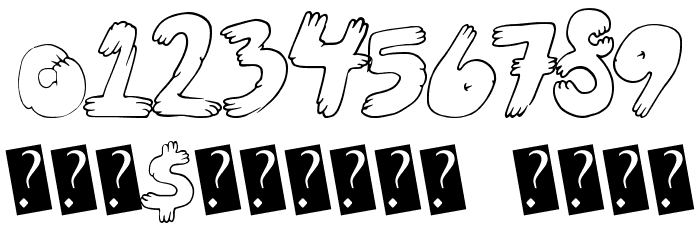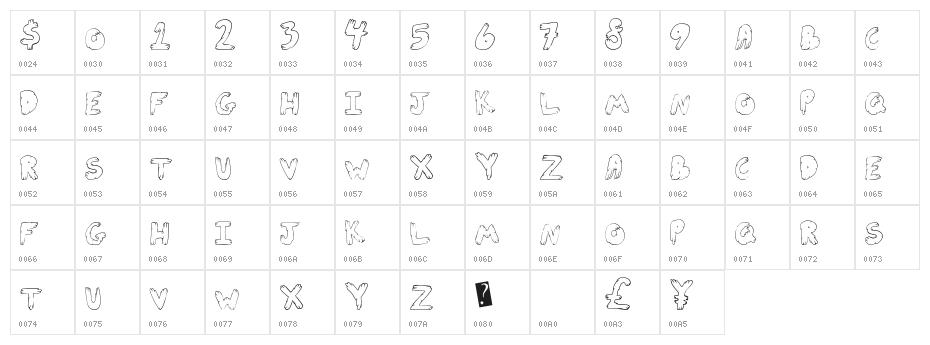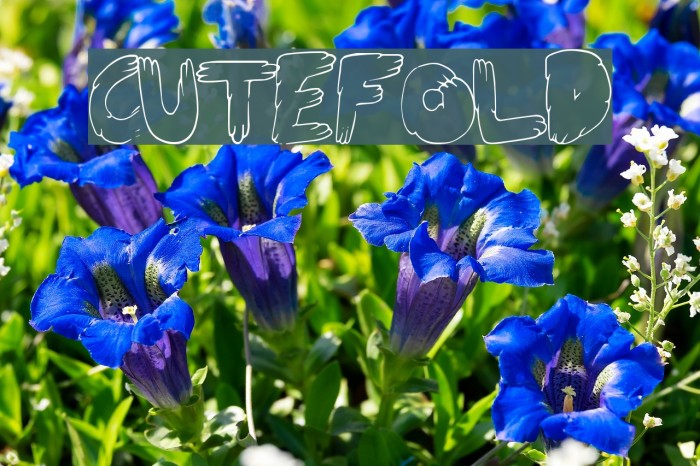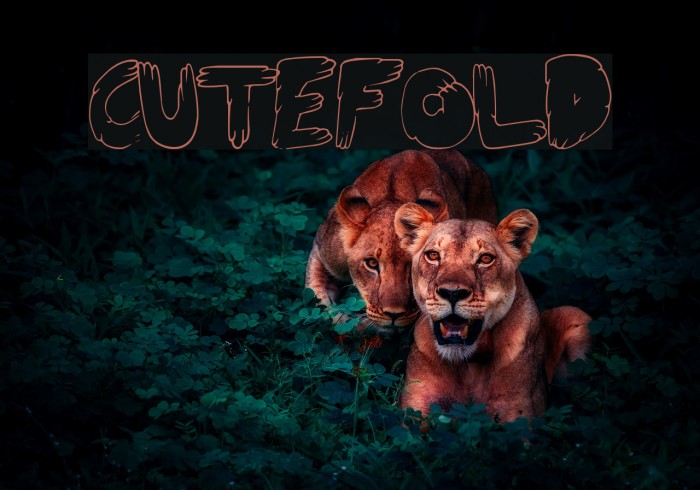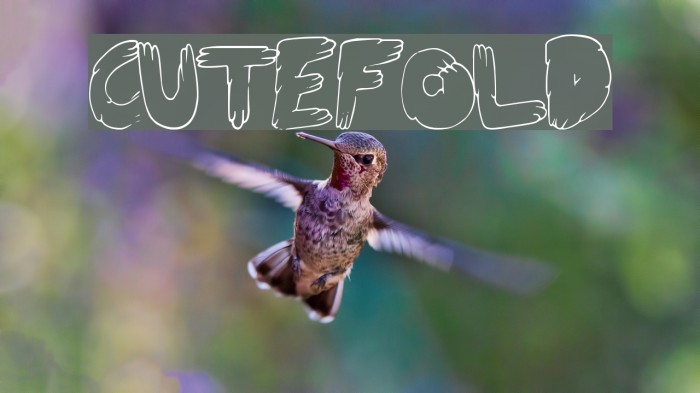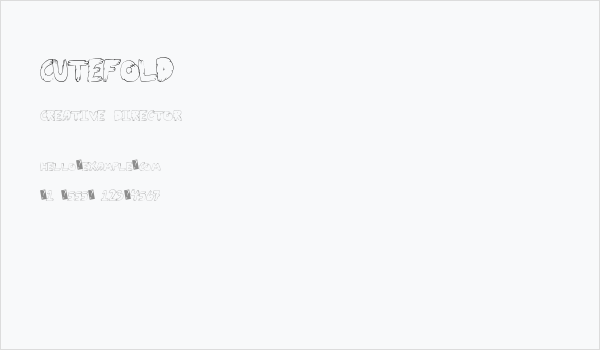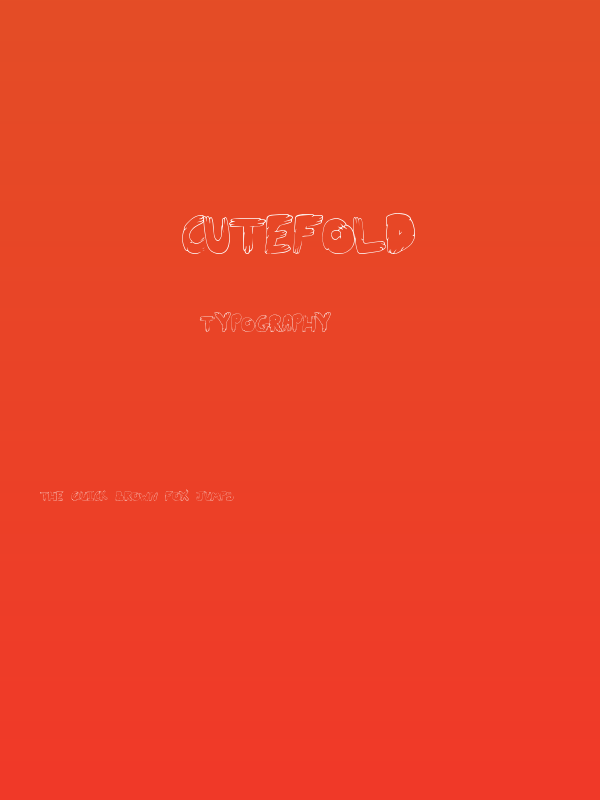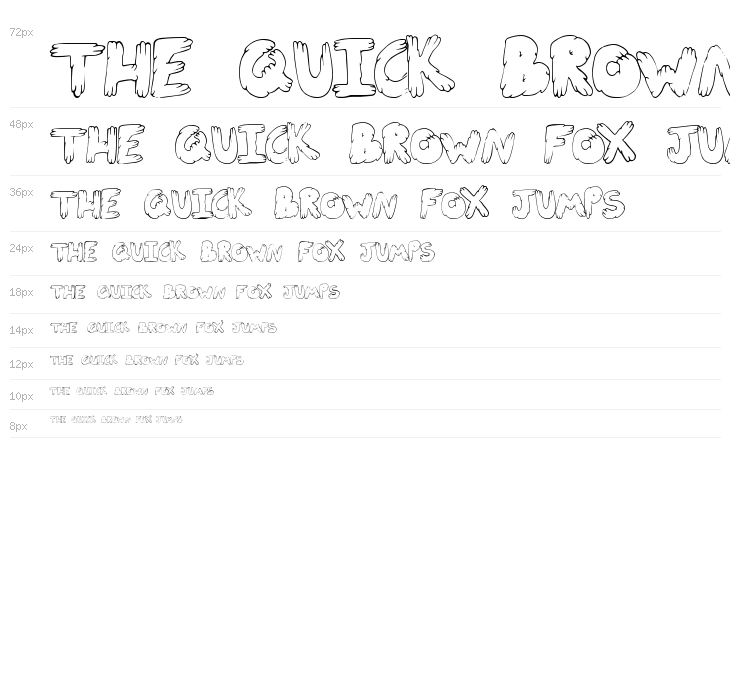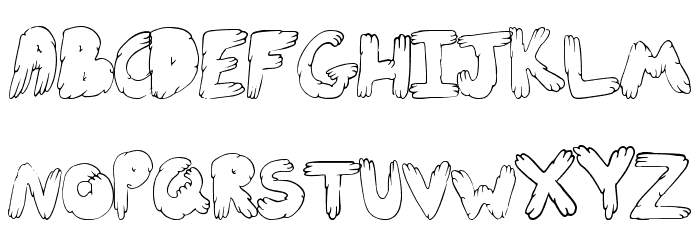
CuteFold Font
CuteFold Description
This playful and whimsical font features letters that appear to be crafted from soft, fluffy material, with each character having a unique, hand-drawn quality. The strokes are uneven, giving a lively and dynamic feel, while the edges are rounded, enhancing its friendly and approachable nature. The font includes both uppercase and lowercase letters, numbers, and a selection of special characters. Its distinctive style makes it stand out, perfect for projects that require a touch of fun and creativity.
| Overall Style | Whimsical, Playful |